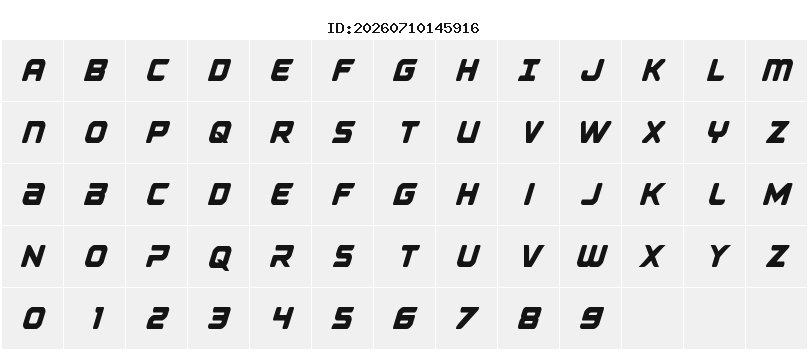
Falcon Punch Condensed Preview
• Font Name: Falcon Punch Condensed
• Font Style: Condensed
• Full Font Name: Falcon Punch Condensed
About Falcon Punch Condensed.ttf
Falcon Punch Condensed.ttf is a modern, elegant sans-serif font designed for ultimate readability and visual harmony. Perfect for branding, headlines, web design, and print materials.